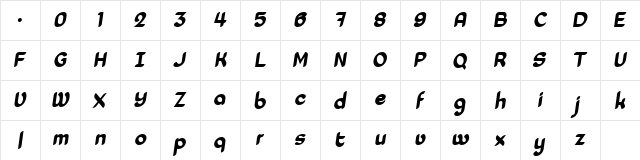
Laedoomai Italic
Design Context for Laedoomai Typeface
Laedoomai takes a measured approach to typography — its balanced proportions and neutral character make it a reliable workhorse for both digital and print work. Its italic angle brings a sense of urgency and motion to the letterforms.
Pro Tip: Try Laedoomai for annotation and caption copy alongside an upright companion — the contrast in angle creates a dynamic but ordered typographic system.